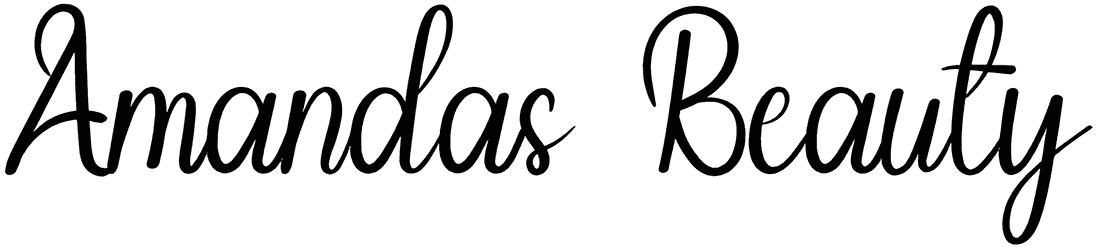
Amandas Beauty Font
Setting a gorgeous hand-lettering face on your words will help you to leave a lasting impact on your followers and this handwritten font is able to do it. The characters are soft and natural and you can set them for a birthday party invitation card or anything else. The Amandas Beauty font has almost full support, which means you can count on it for any short or long text.